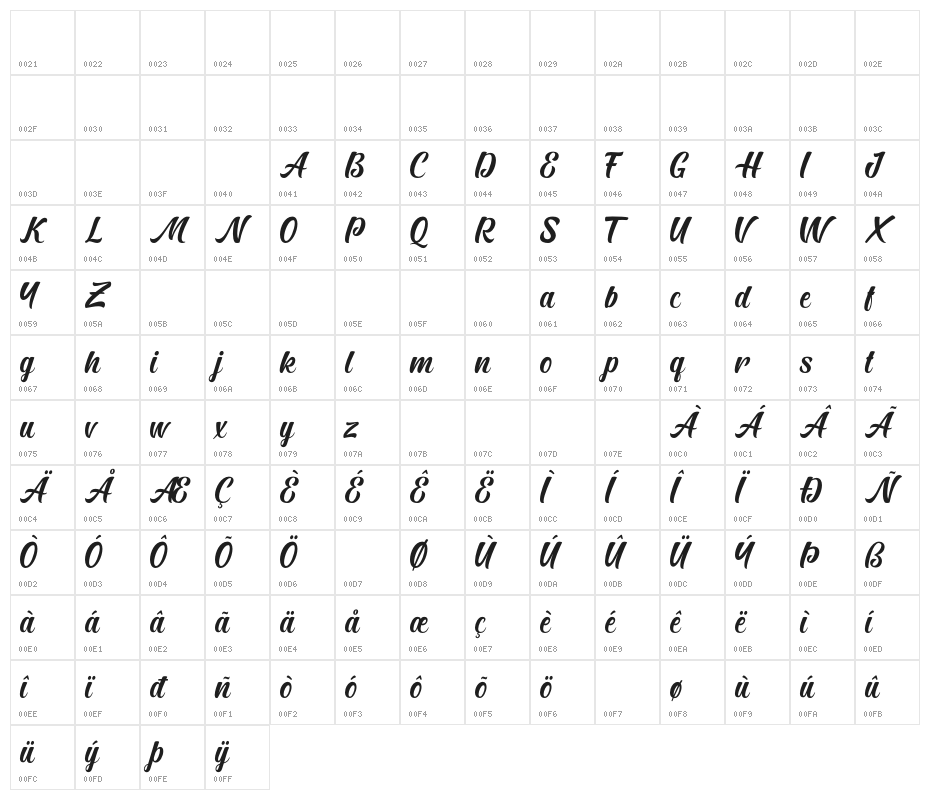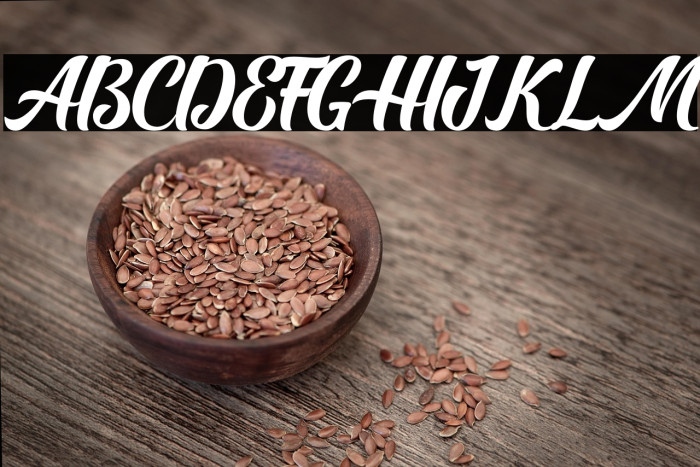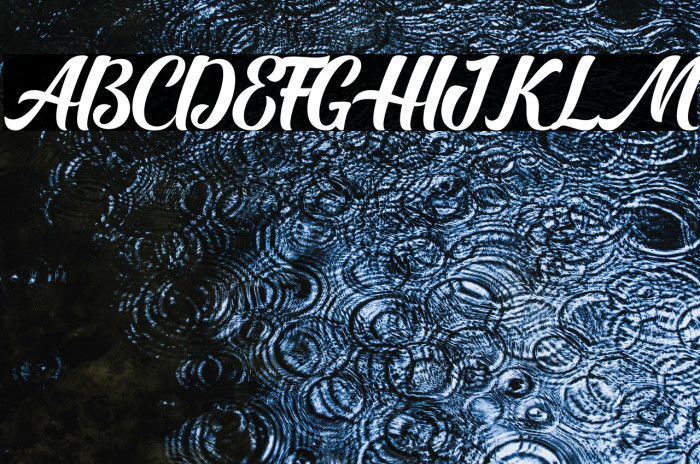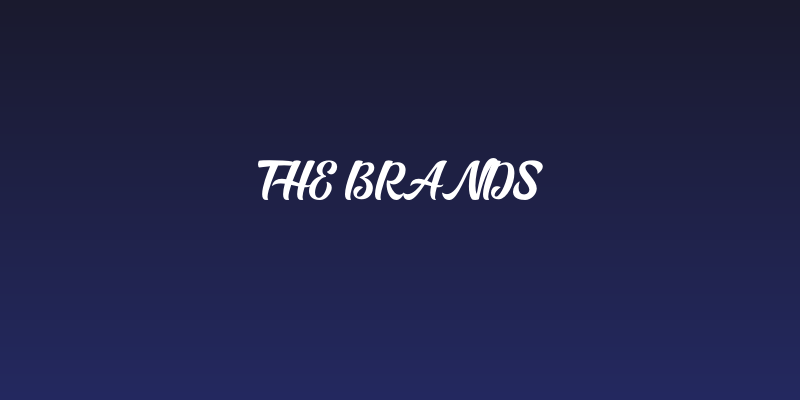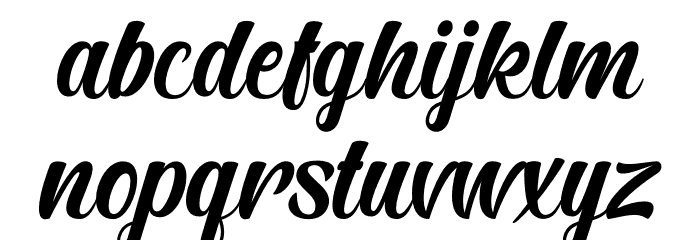
The Brands Font
The Brands Description
This font features a bold and expressive script style, characterized by its flowing, cursive letterforms. The strokes are thick and dynamic, with a high contrast between thick and thin lines, giving it a dramatic and eye-catching appearance. The uppercase letters are particularly elaborate, with sweeping curves and flourishes that add a sense of movement and elegance. The lowercase letters maintain a consistent style, with smooth connections between characters, enhancing the font's fluidity. This font is ideal for creating impactful designs that require a touch of sophistication and flair.